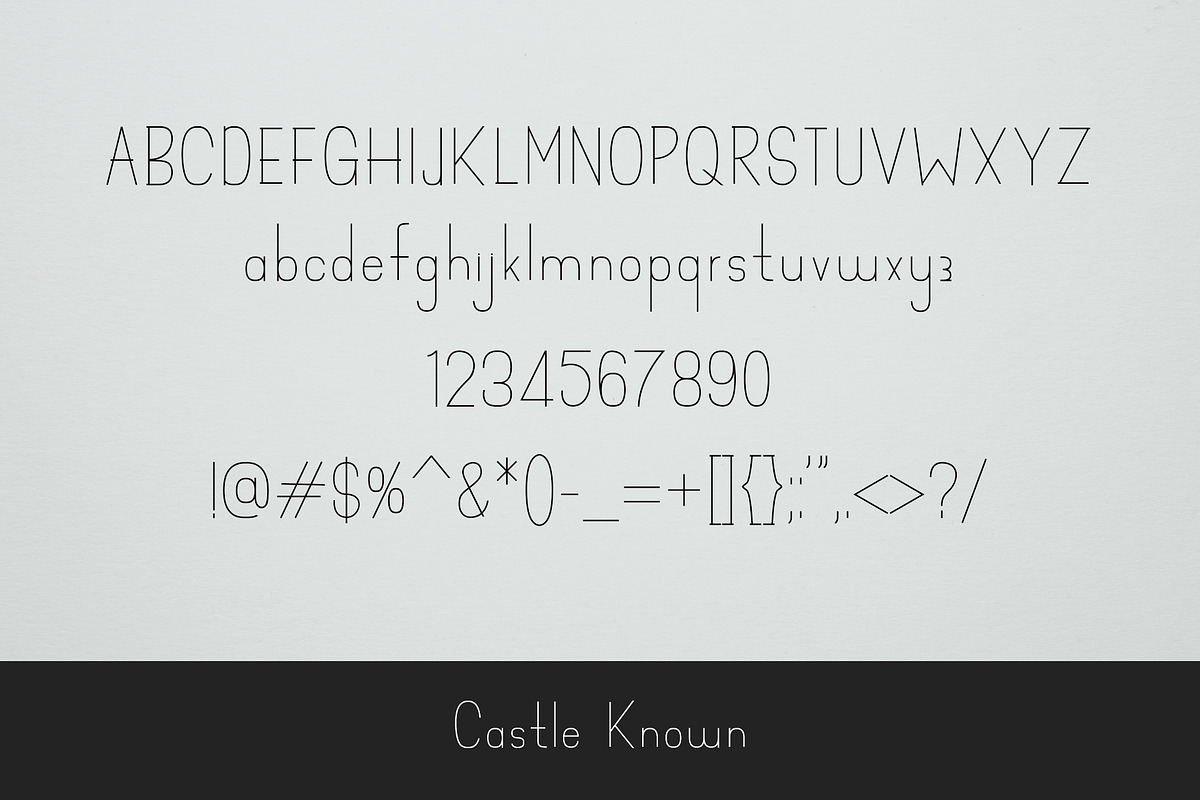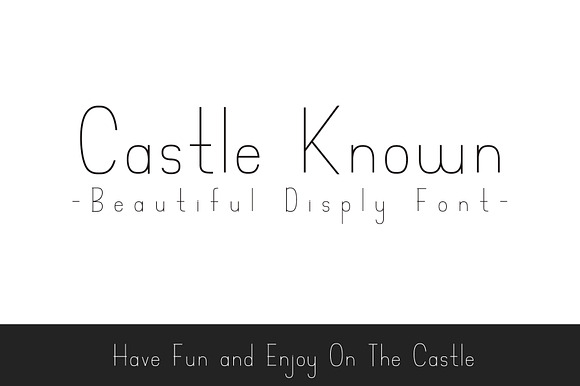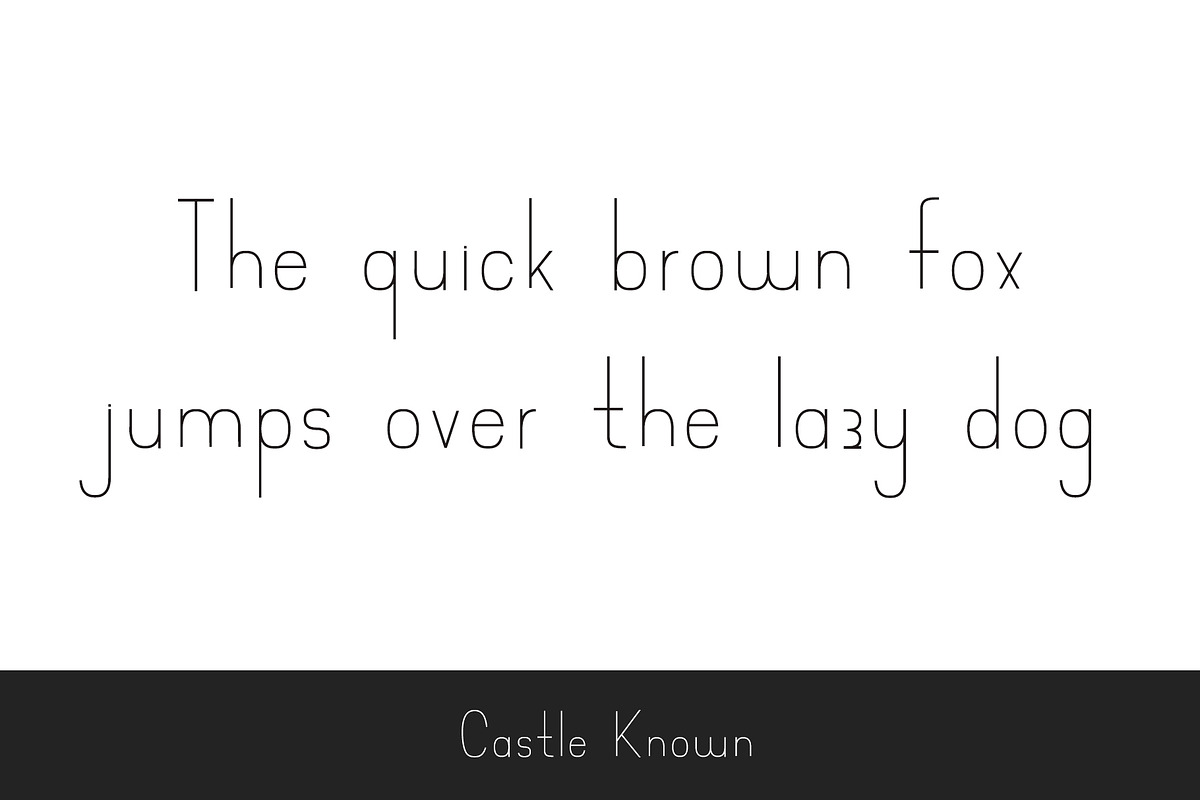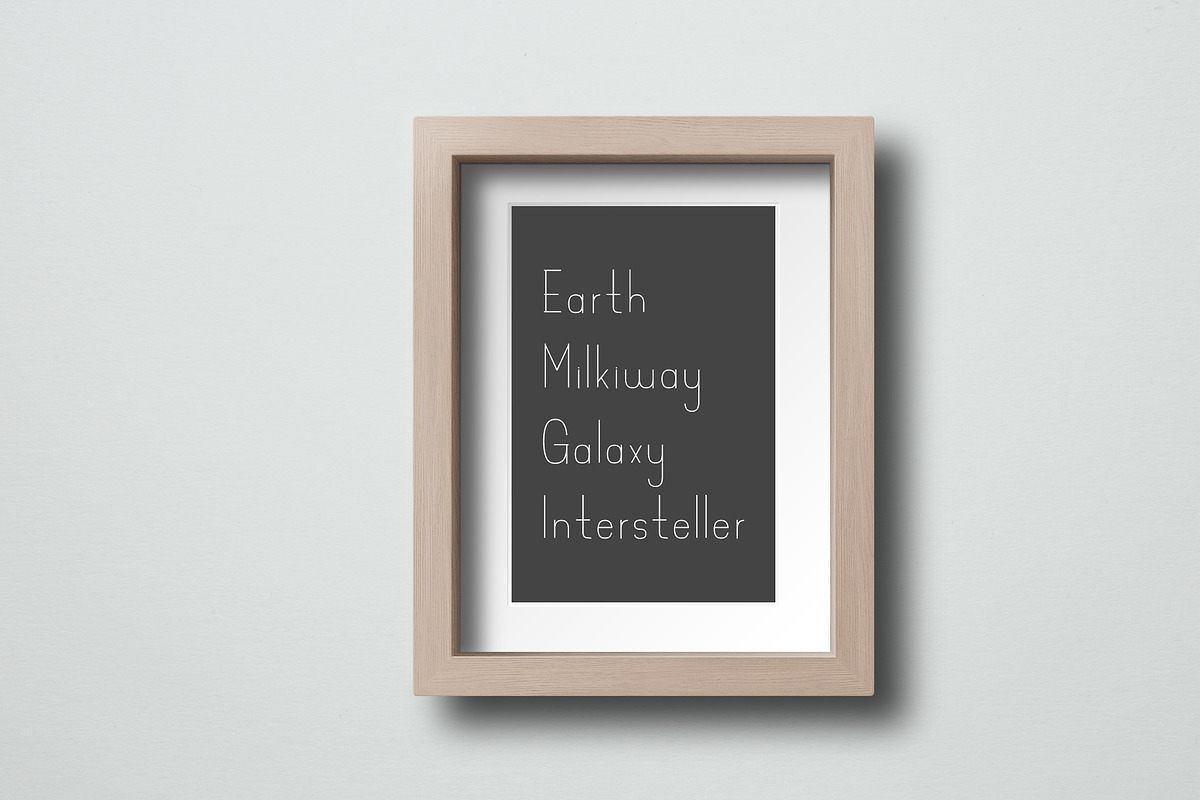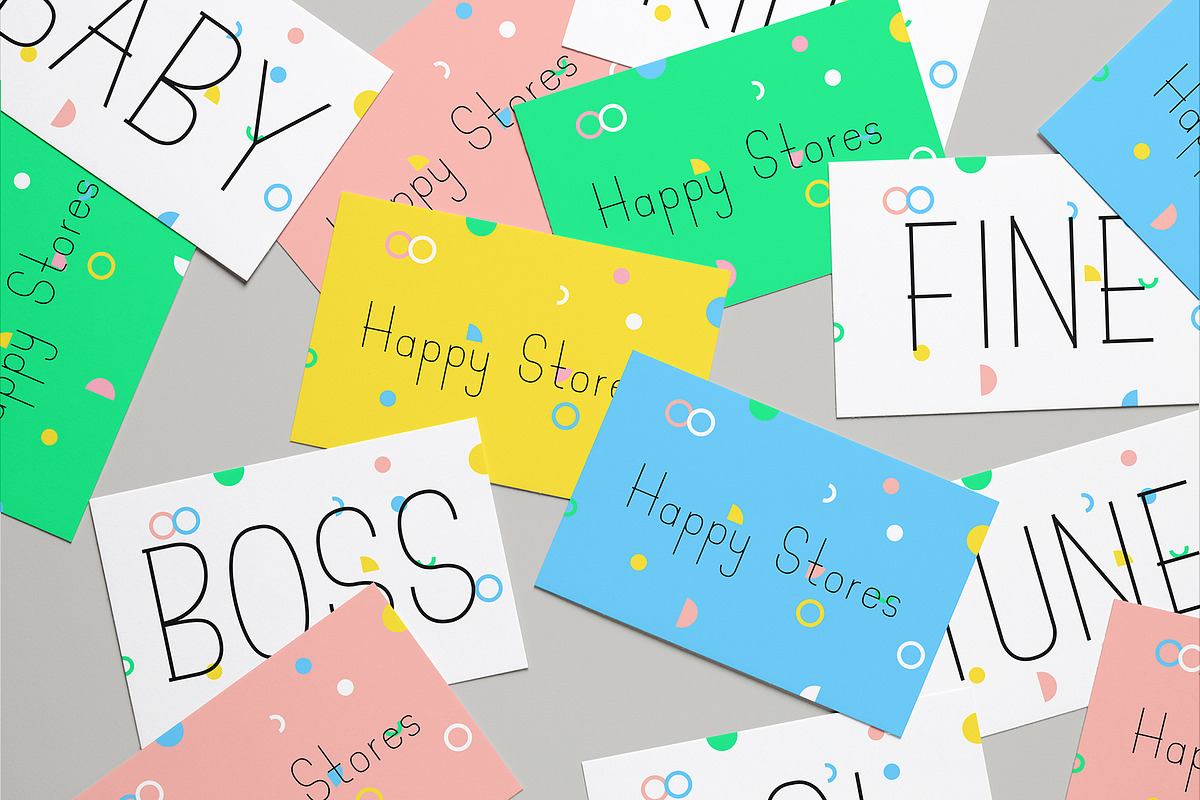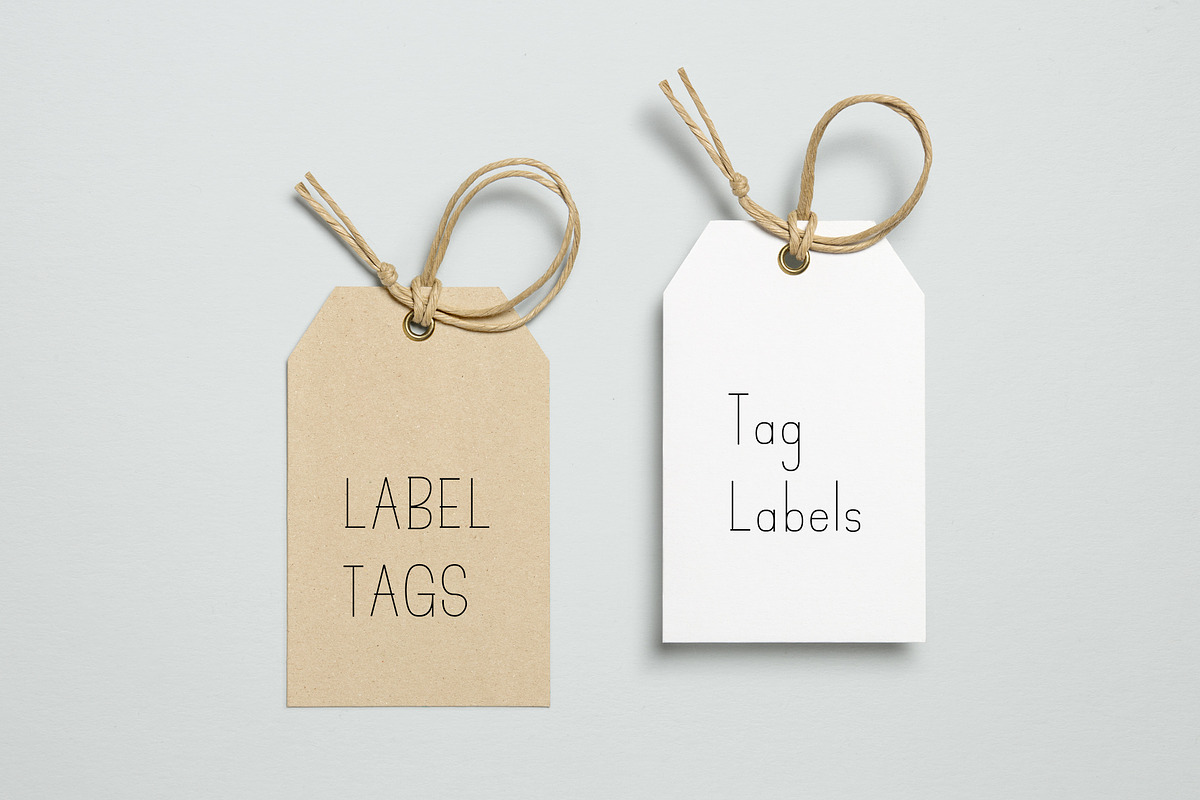
Castle Known - Font
Castle Known is Beautiful Minimal Display Font Perfect For Brand Titles and Invitations.
Minimal Style Disply Font.
Best Used for Titles, Decoration, Invitations.
- Uppercase Letters. ABCDEFGHIJKLMNOPQRSTUVWXYZ
- Lowercase Letters. abcdefghijklmnopqrstuvwxyz
- Numbers. 1234567890
- Punctuation's. !@#$%^&()+-=[]{};:'",.?/